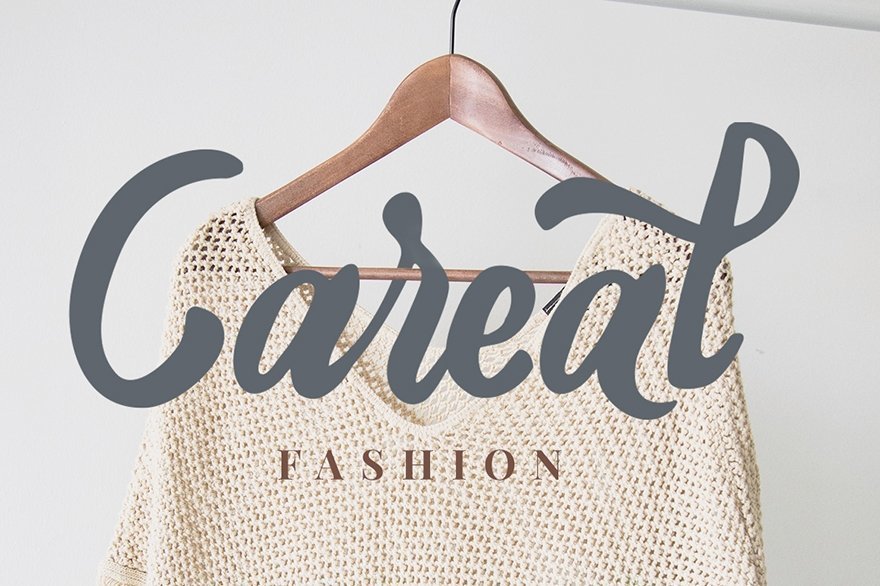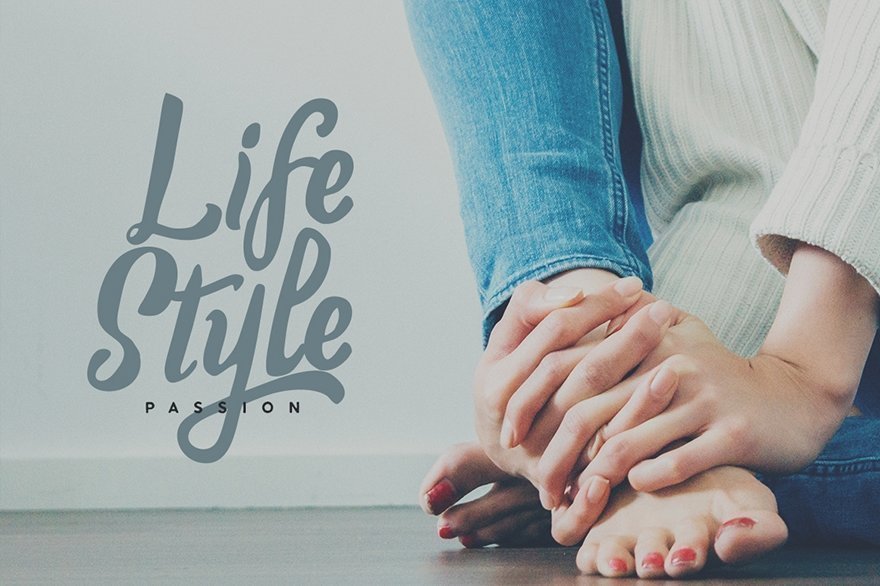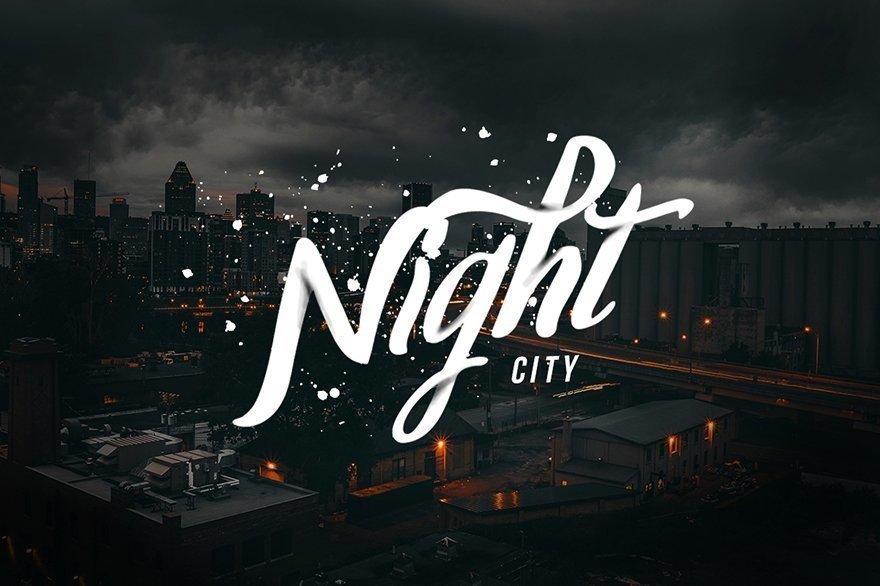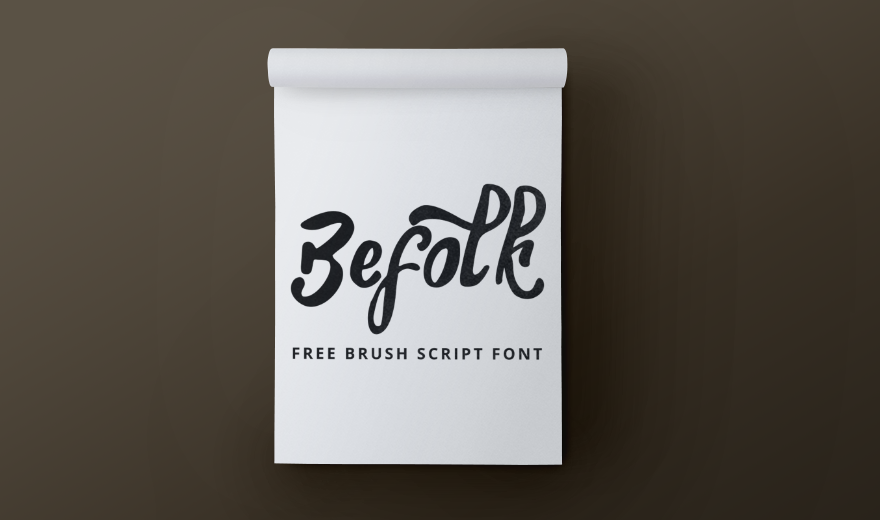
Befolk Brush Script is a Sweet Bold Typeface with some Alternate. You can use it as a logo, badge, insignia, packaging, headline, poster, t-shirt/apparel, greeting card, and wedding invitation. The flowing characters are ideal to make an attractive messages, mix and match Cornish with a bunch of alternative characters to fit your project.
Created by Hendra Dirtyline